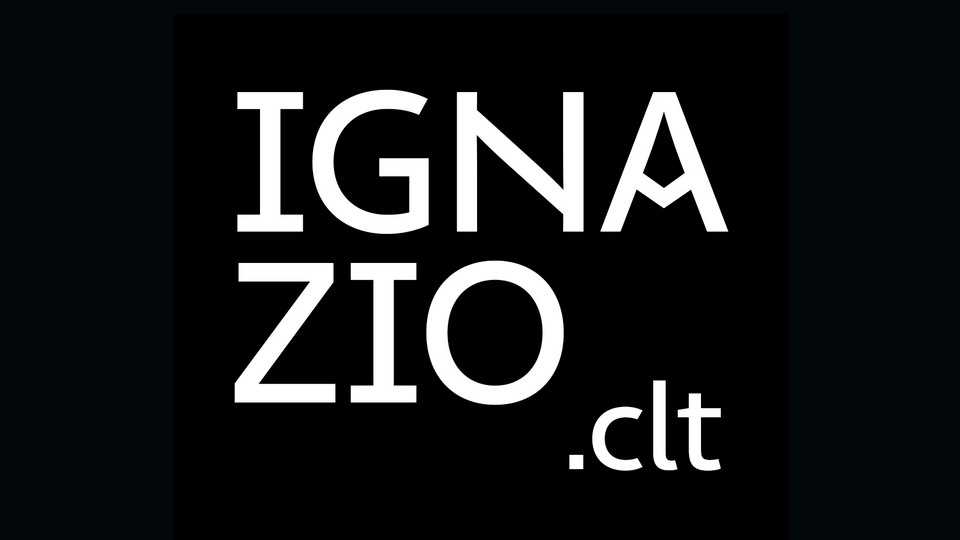
Download Ignazio typeface, a humanistic sans serif font family in Text and Display styles, designed for the signage of Catania’s underground transport system.
Designer: Collletttivo